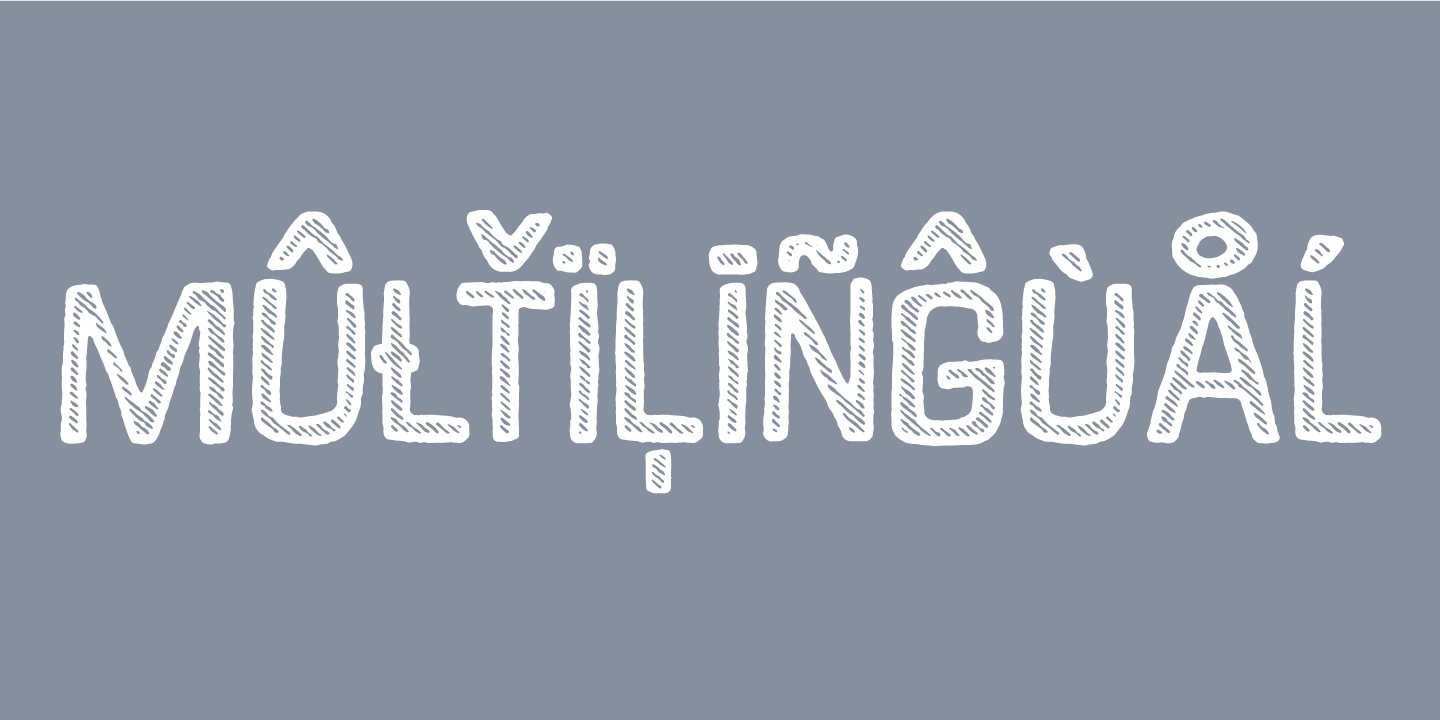
Quick Fix Font is perfect for repair service branding, emergency response signage, fast tech support graphics, instant solution marketing, urgent service campaigns, rapid maintenance logos, and efficient problem-solving communications.
What makes Quick Fix Font exciting is its rapid efficiency and instant solution appeal, featuring swift letterforms that capture the essence of quick problem-solving while delivering immediate visual impact and service reliability.
The Quick Fix Font family includes Light, Regular, Medium, Bold, and Heavy weights, plus urgent variants and efficiency alternates that enhance the font's rapid character and solution-focused possibilities.
Quick Fix Font Free Download embodies the essential spirit of rapid problem-solving and the reliable efficiency of instant solutions through dynamic typography design. This efficient typeface captures the urgency of emergency services and the satisfaction of immediate fixes, creating a swift visual language that speaks to service professionals and problem-solvers who value quick response, efficient solutions, and the dependable appeal of rapid service delivery. The font's efficient character and solution-focused appearance make it perfect for repair companies, emergency services, and technical support organizations that want to communicate speed, reliability, and the compelling appeal of instant problem resolution.
Repair services and emergency response companies consistently select Quick Fix Font for projects that require authentic efficiency credibility and rapid visual impact. The typeface's swift construction and solution-focused personality make it exceptionally effective for tech support companies, maintenance services, and emergency responders where quick response and efficient problem-solving are paramount. Each character has been designed with efficiency precision to ensure maximum impact across all service applications and rapid response environments.
The efficiency advantages of Quick Fix Font extend beyond its rapid appeal to include practical functionality for diverse service applications. The font maintains excellent readability in urgent situations while delivering the distinctive character that creates memorable service experiences and connects with customers seeking immediate solutions. Its comprehensive character set includes service symbols and efficiency elements that make it particularly suitable for repair documentation and solution-focused communication.
Tech support companies, emergency services, and maintenance organizations frequently choose Quick Fix Font because of its ability to instantly convey service authenticity and efficiency sophistication. The typeface's rapid aesthetic helps establish credibility in competitive service markets while appealing to customers who value quick solutions, reliable service, and the satisfying experiences that come from efficient problem resolution and rapid response excellence.